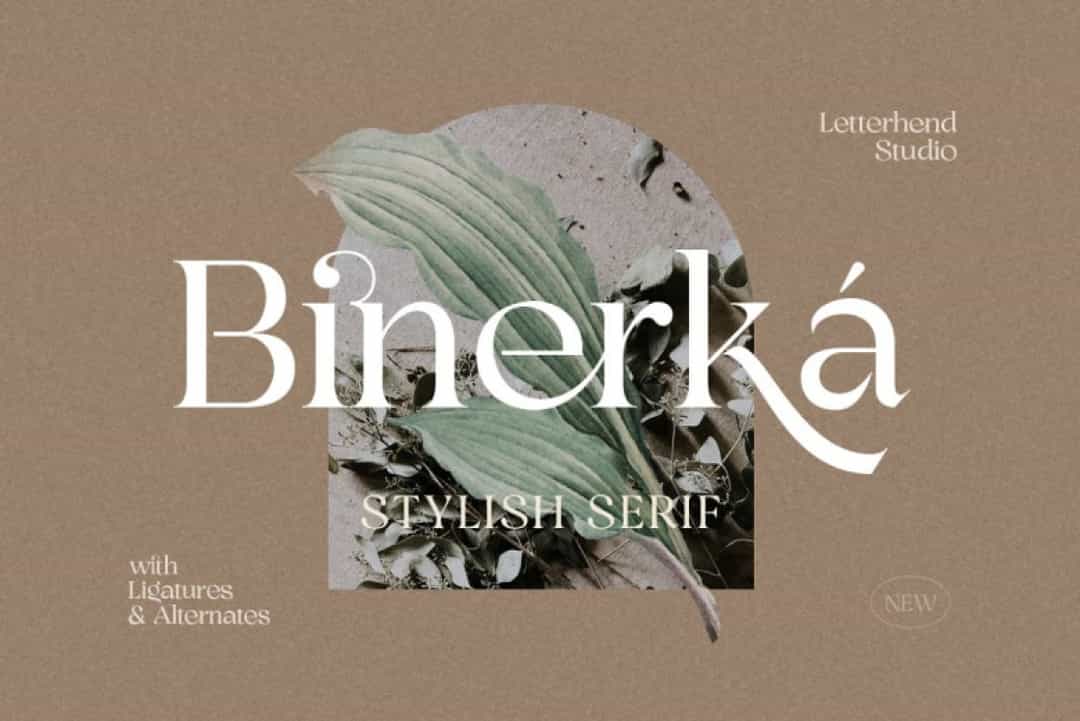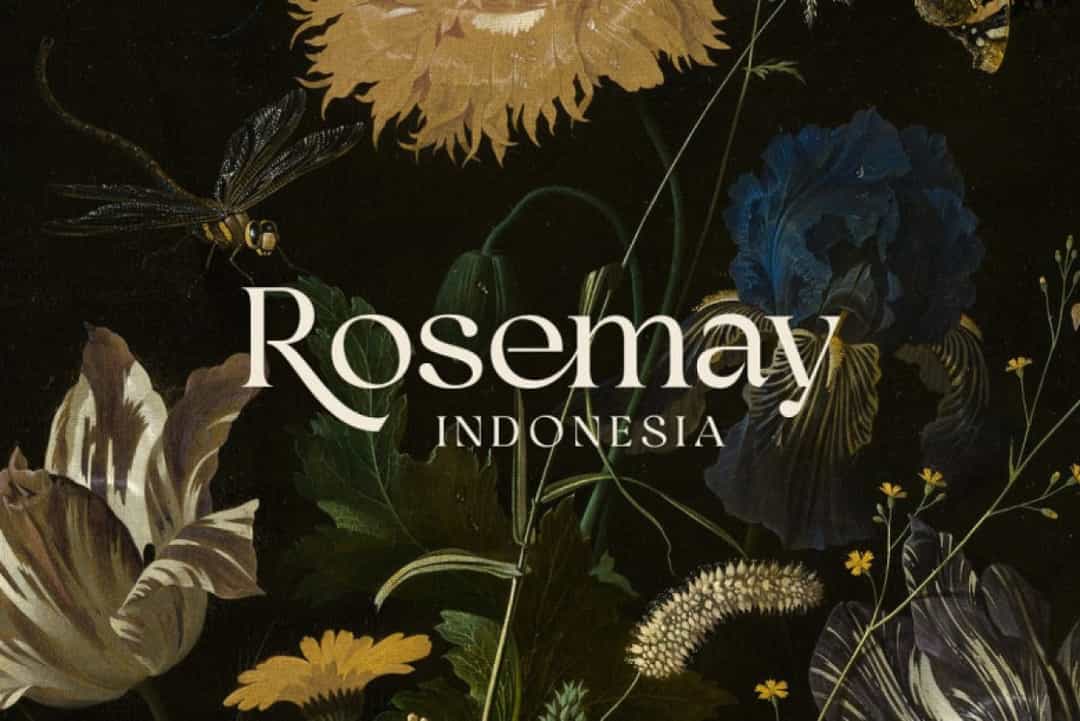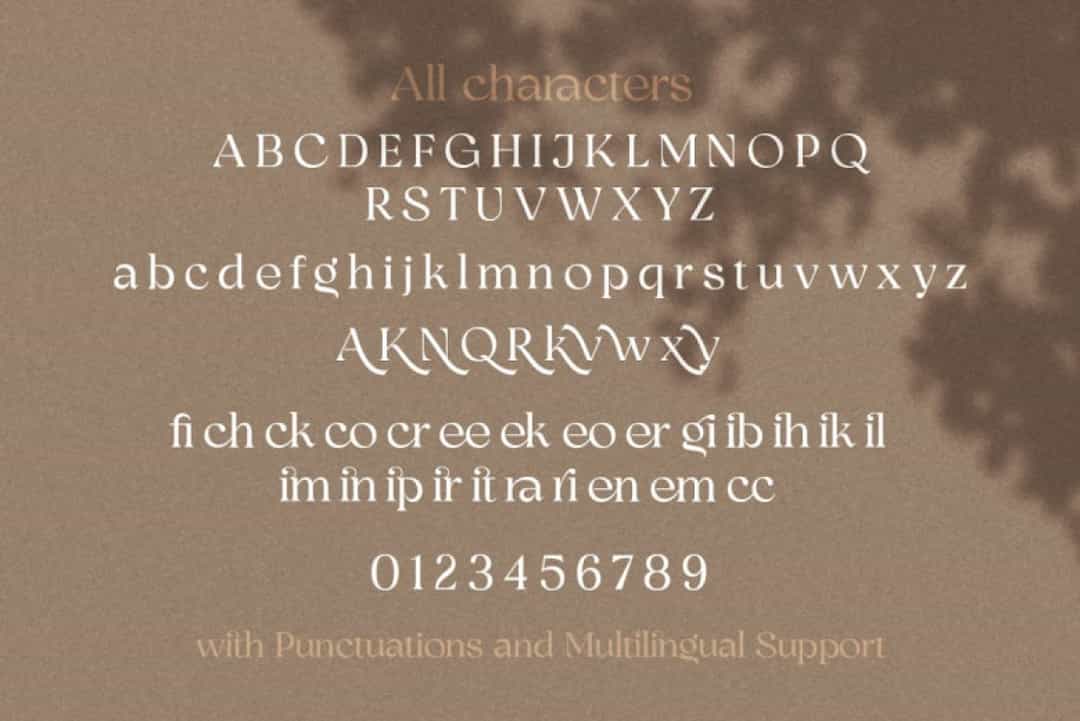
Binerka can be described as an elegant and stunning serif font with beautiful detailing that looks fantastic across various designs, such as wedding invitations, thank-you cards wedding invitations greeting cards logos and many others. It makes a powerful statement.